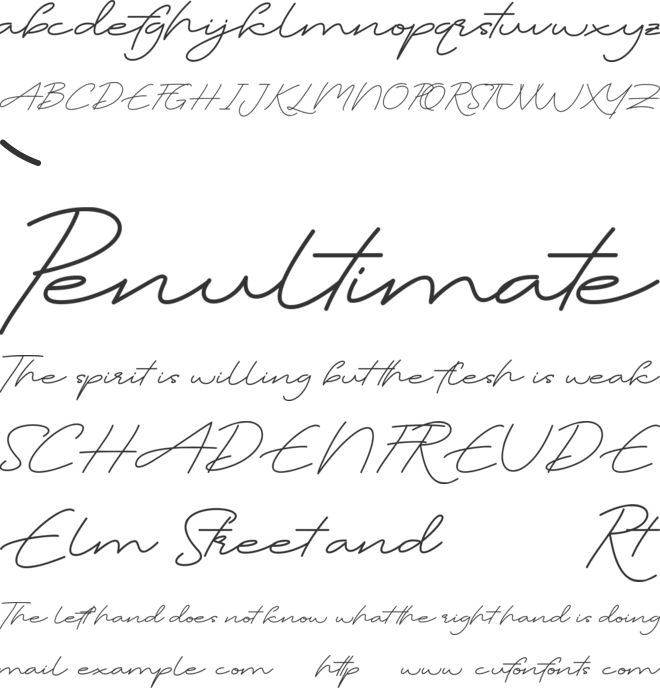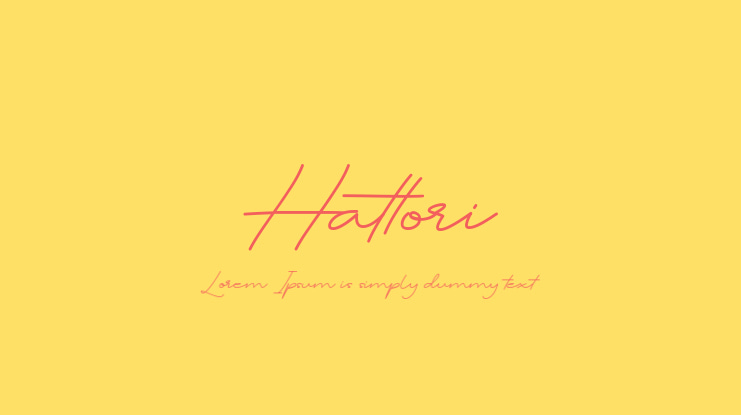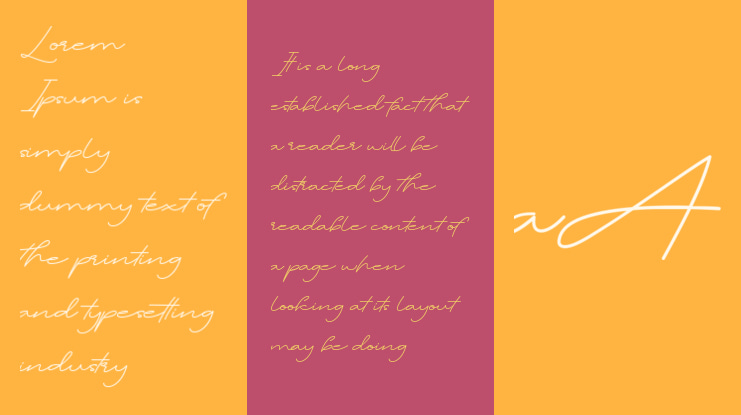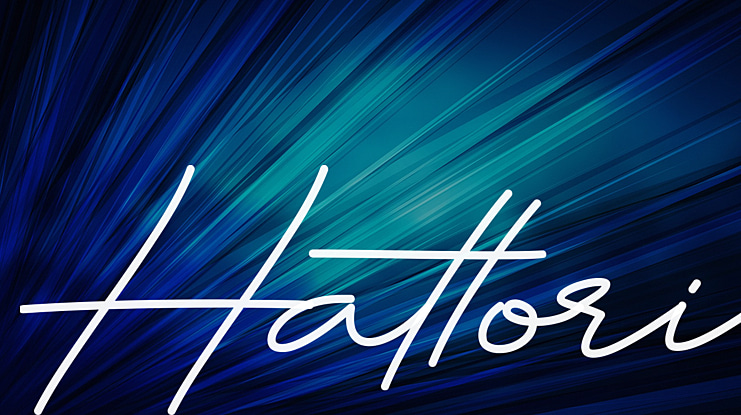
Hattori Font
Nox Studio 2021 ( Sarif Hidayat)
Hattori is a dazzling and timeless handwritten font. It is the best choice for creating eye-catching logos, branding, and quotes. This font is PUA encoded which means you can access all of the glyphs and swashes with ease!